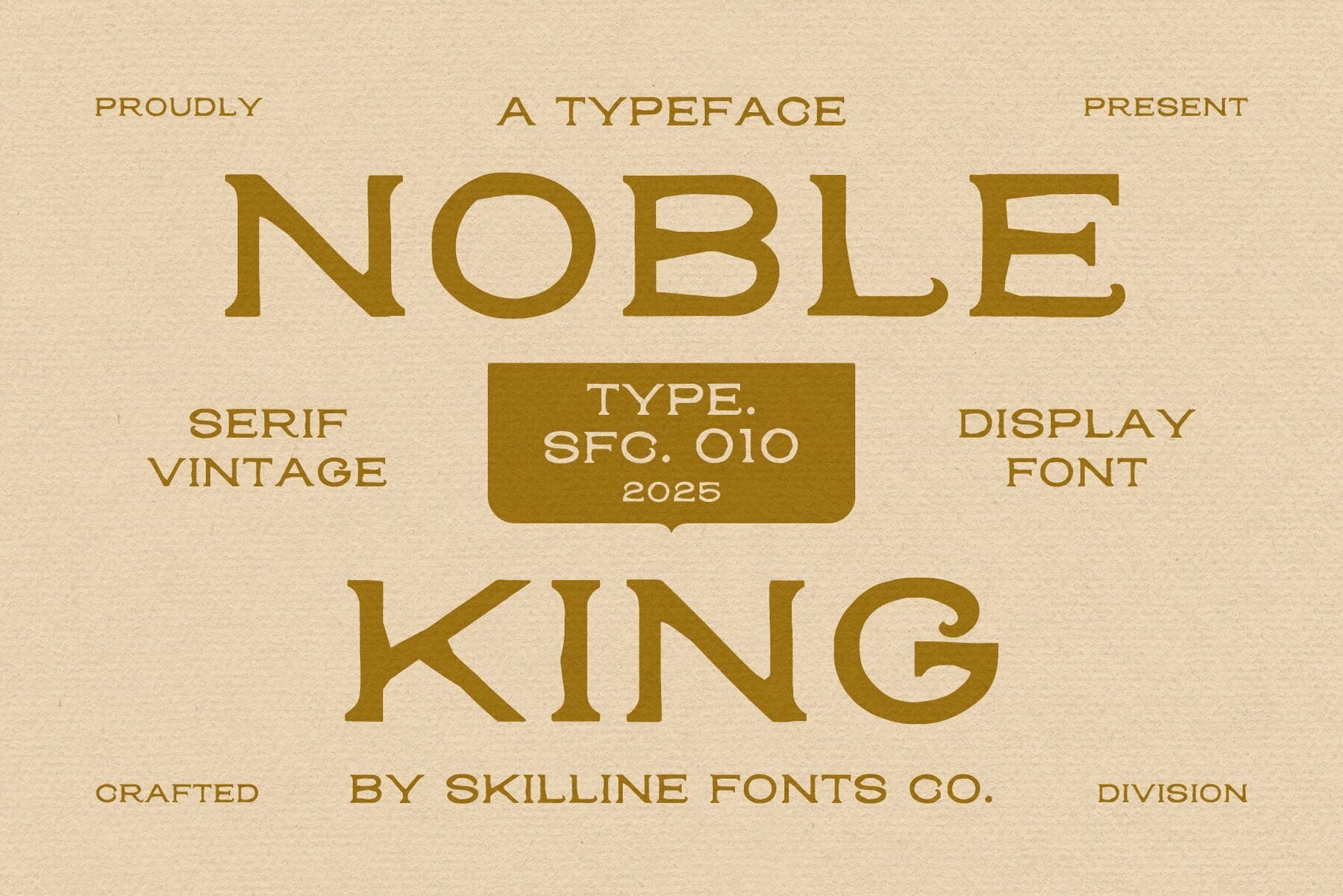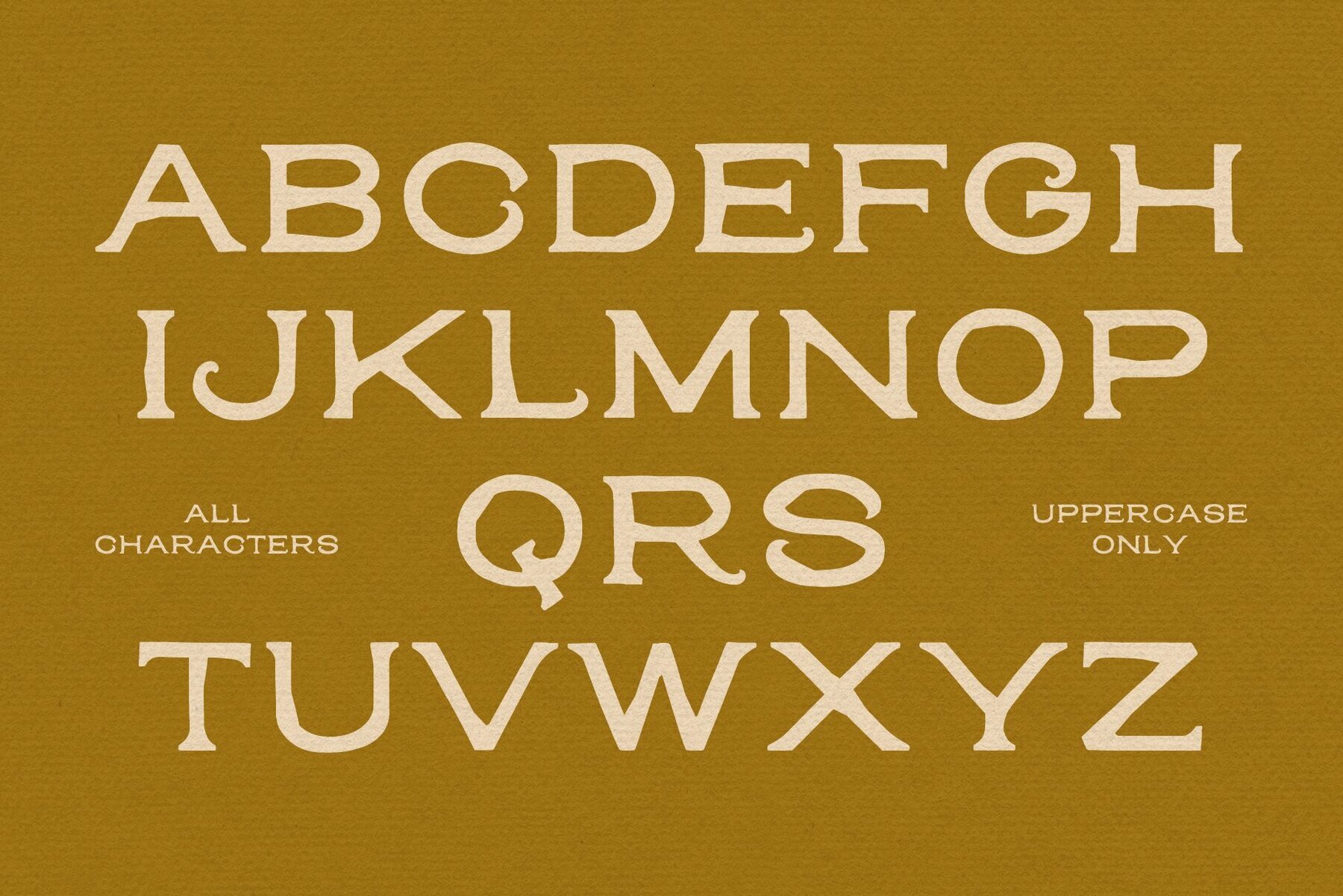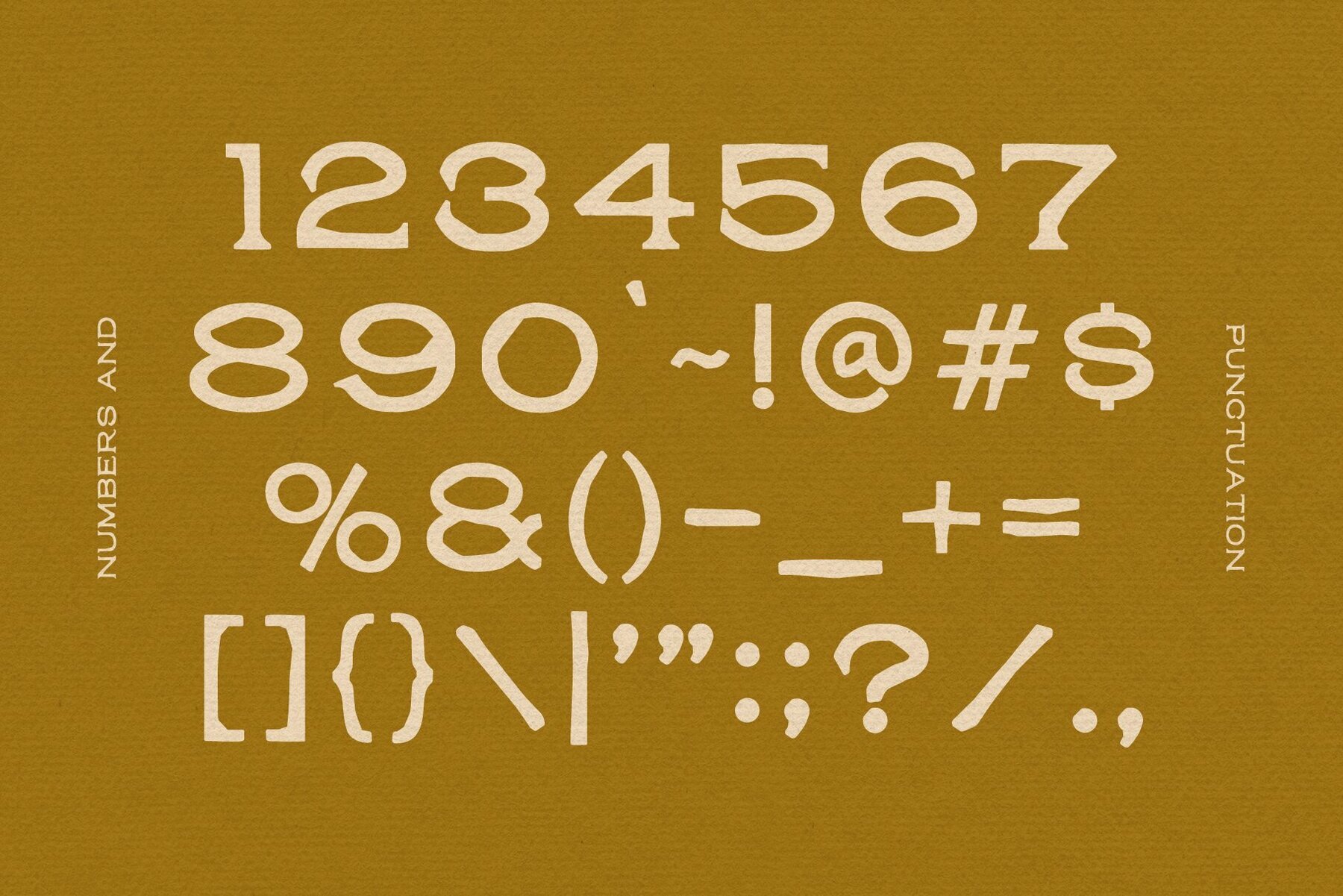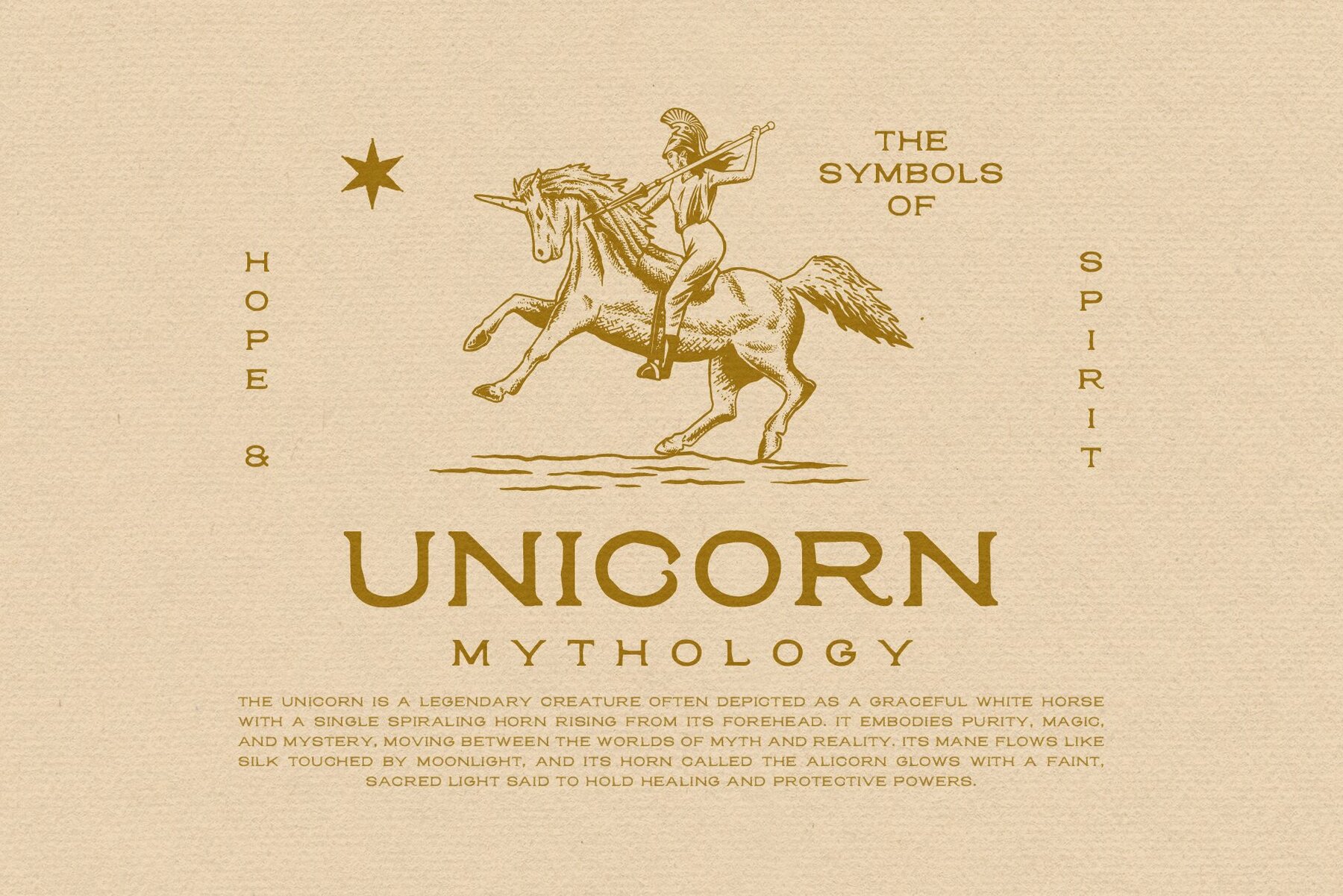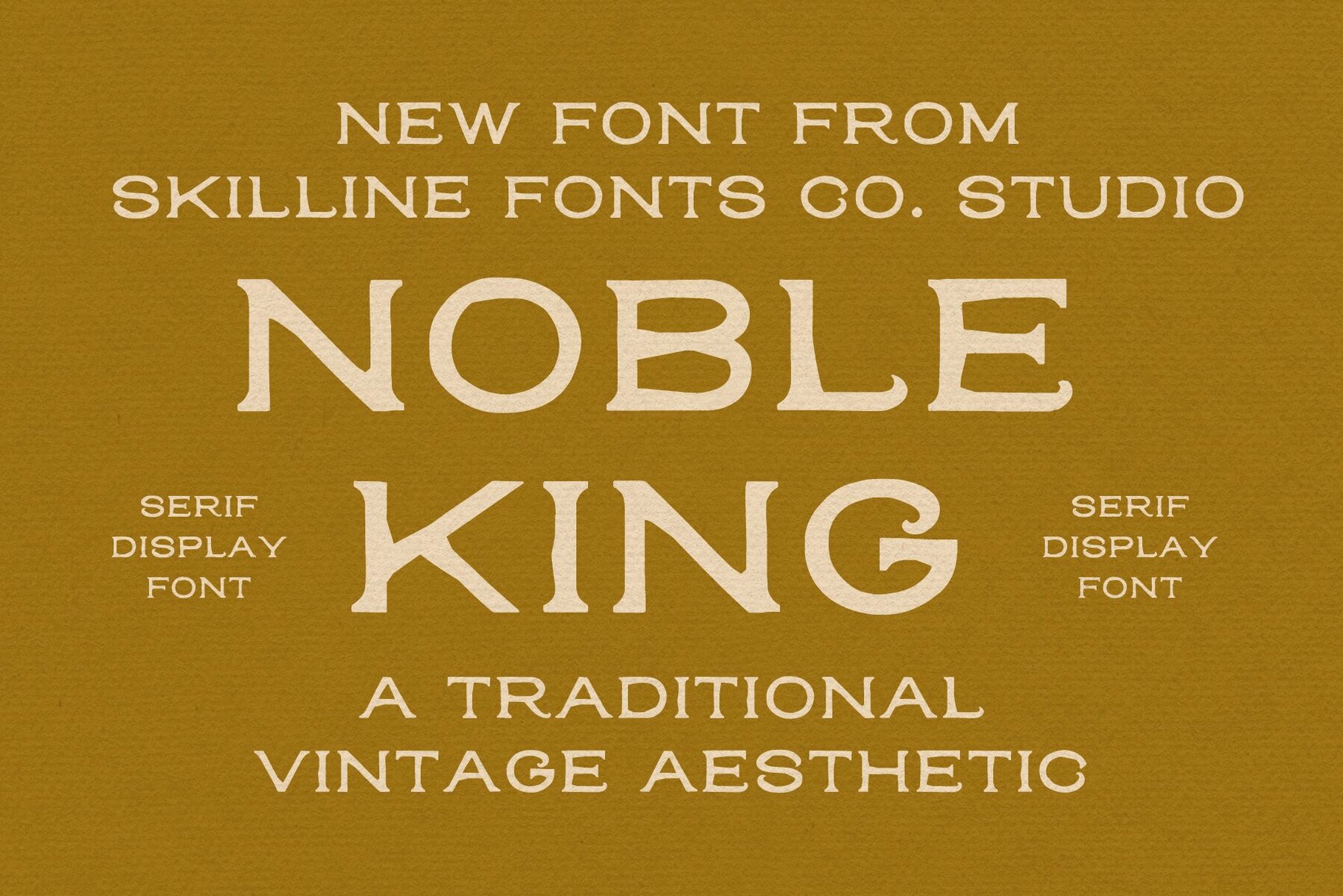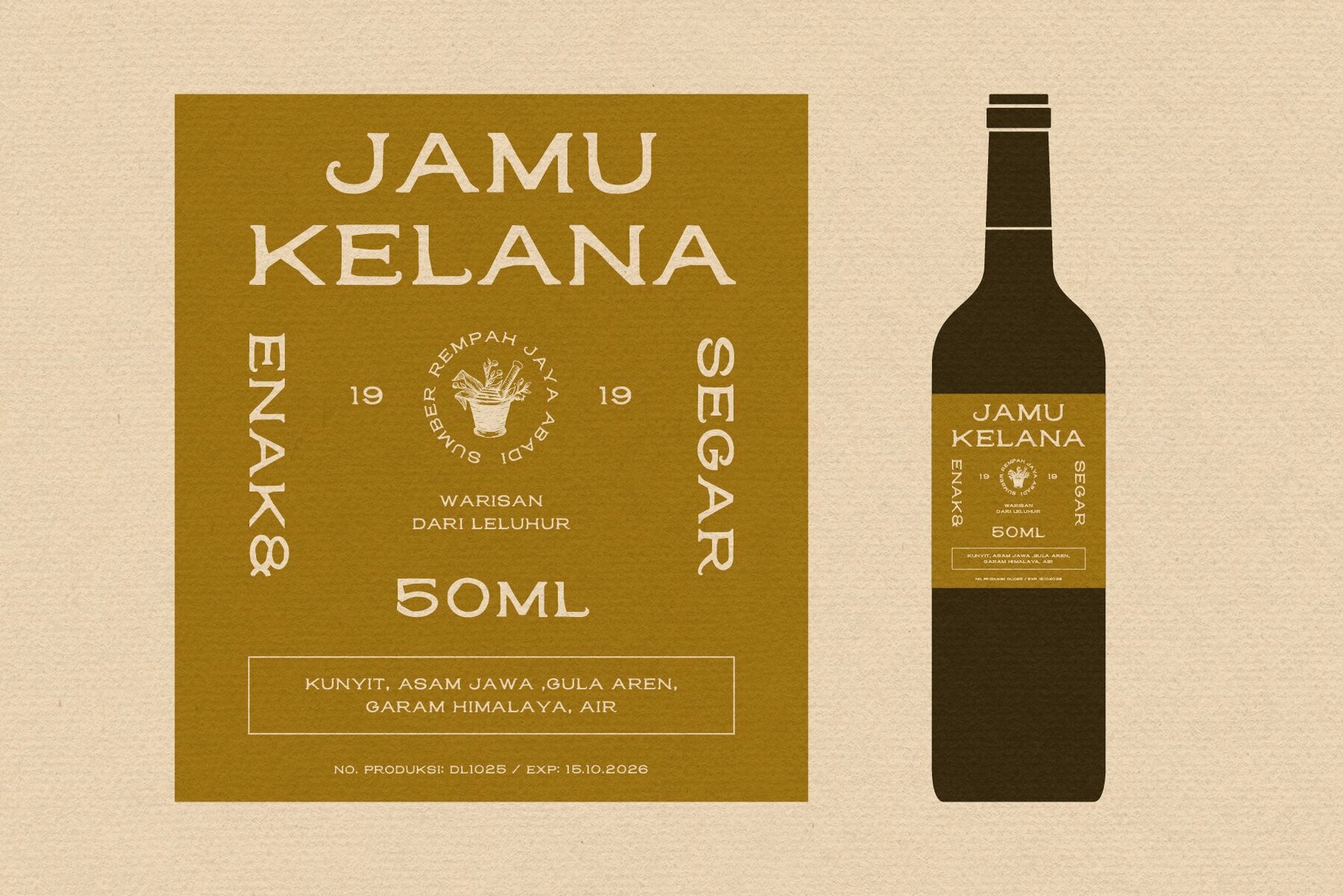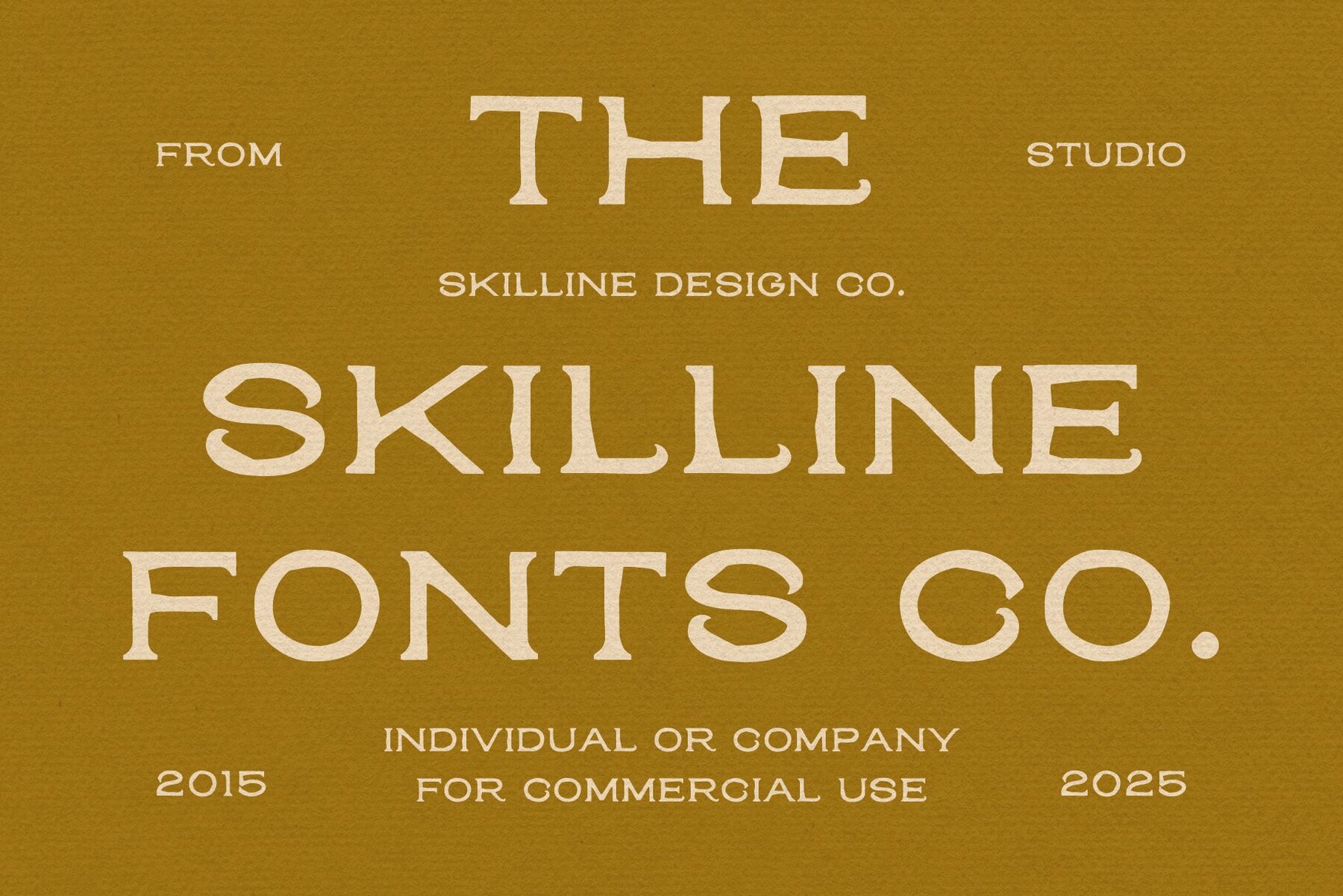
Noble King stands out with its bold vintage serif design, drawing inspiration from classic print, antique signage, and the enduring legacy of traditional craftsmanship. Sculpted serifs and a refined yet rugged aesthetic combine to give this typeface a presence that feels both genuine and self-assured. Each letterform is thoughtfully balanced and features subtle imperfections, offering a warmth and individuality that set Noble King apart. The result is a font that brings together regal structure and handcrafted detail for a truly authentic typographic voice. Noble King is a dependable choice for headlines, logos, packaging, and apparel graphics requiring a sense of heritage and authority. Its ability to balance classic charm with a confident, contemporary style makes it particularly well-suited for designers seeking character and authenticity in their work. Use it to convey a premium feel in branding, add distinction to product labels, or create striking editorial layouts that recall timeless design traditions.Noble King: Vintage Serif Display Font